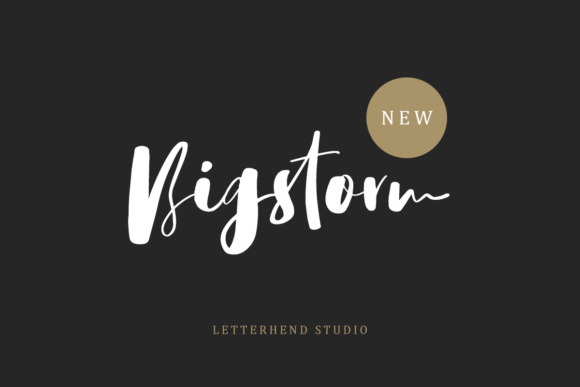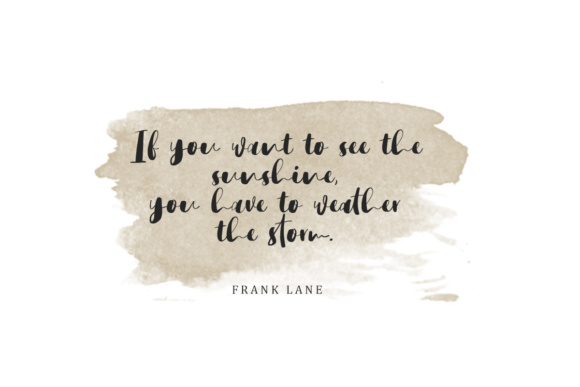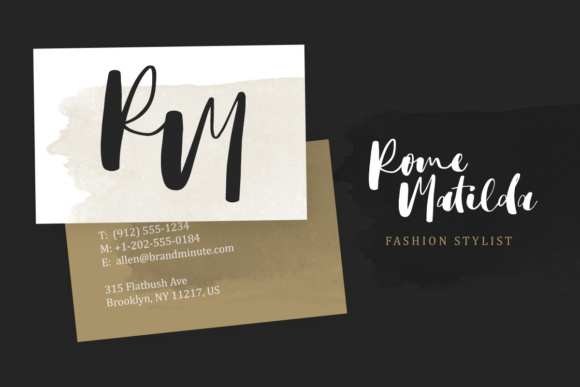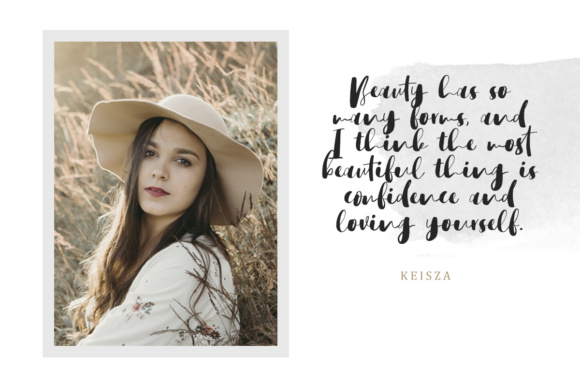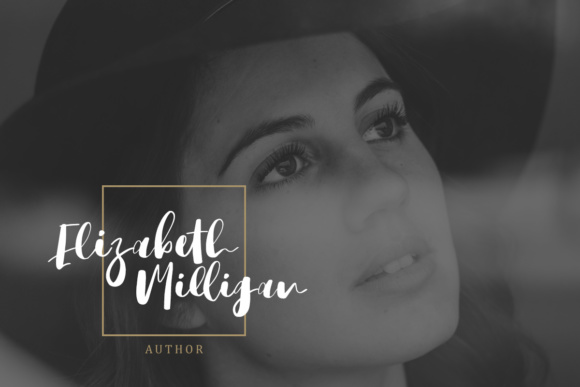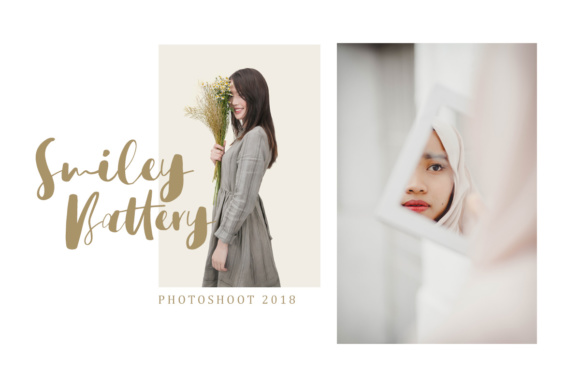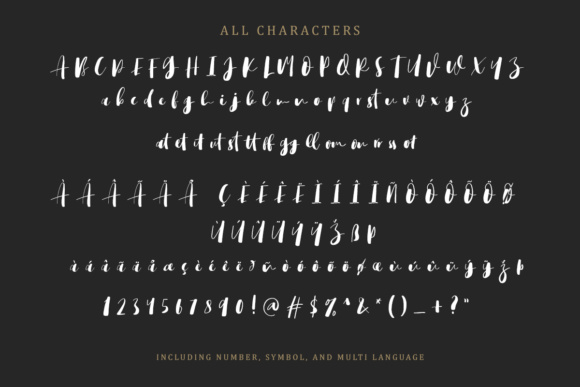
Bigstorm Script Font
About Bigstorm Script Font
Bigstorm is a unique hand made font that will capture the attention at glance. This font can be used perfectly for signatures, headlines, lettering quotes, wedding invitations and much more!